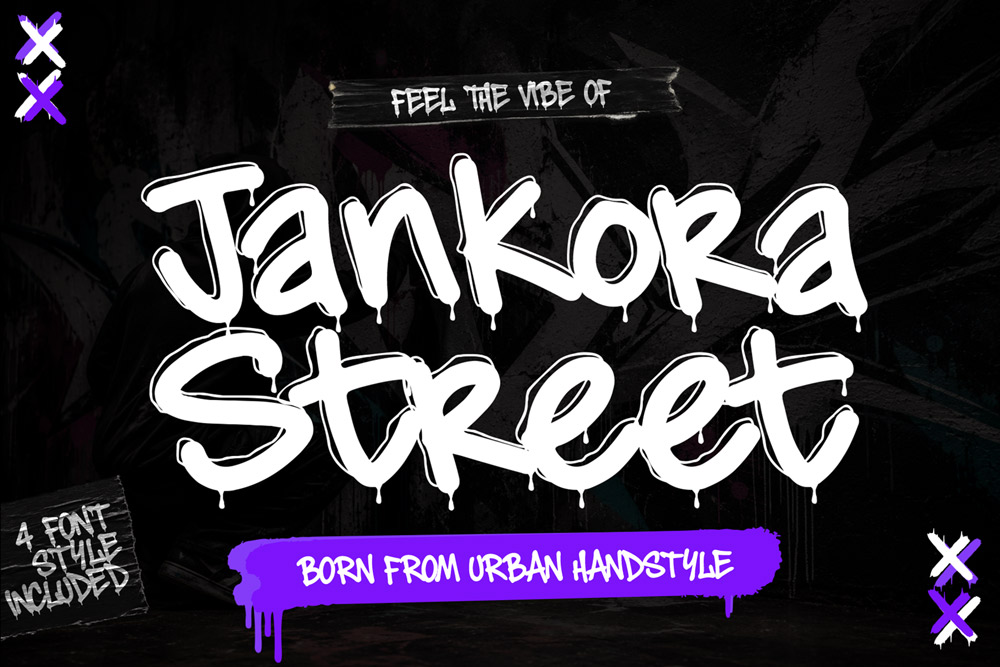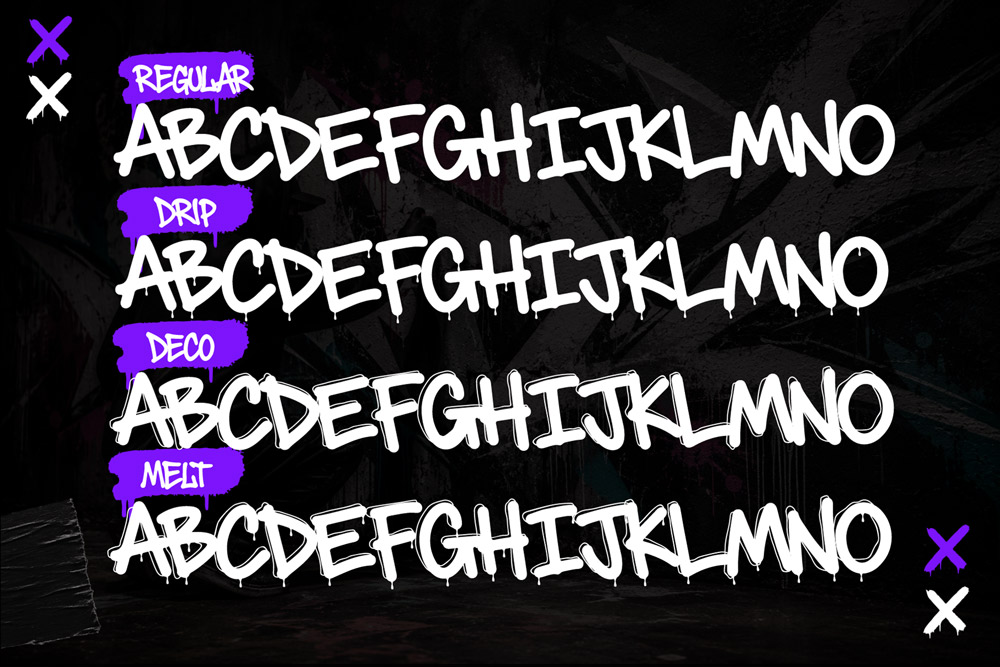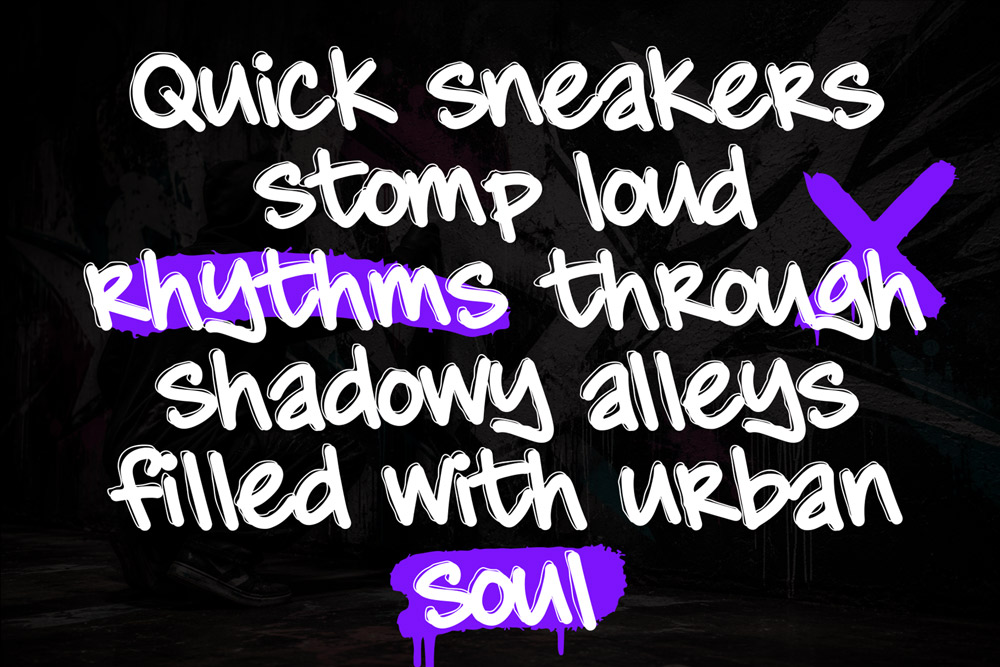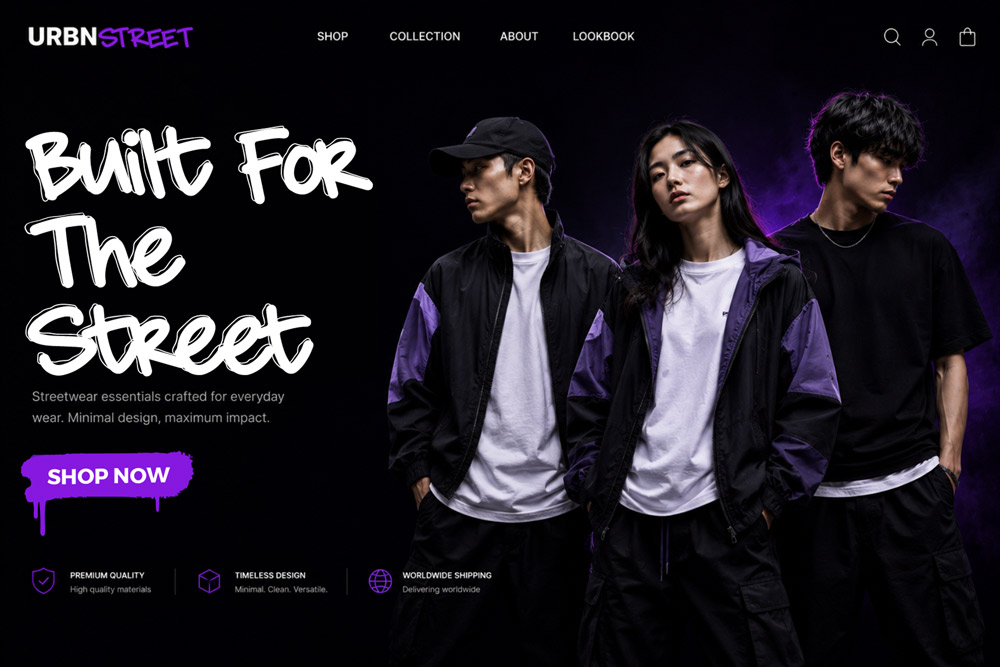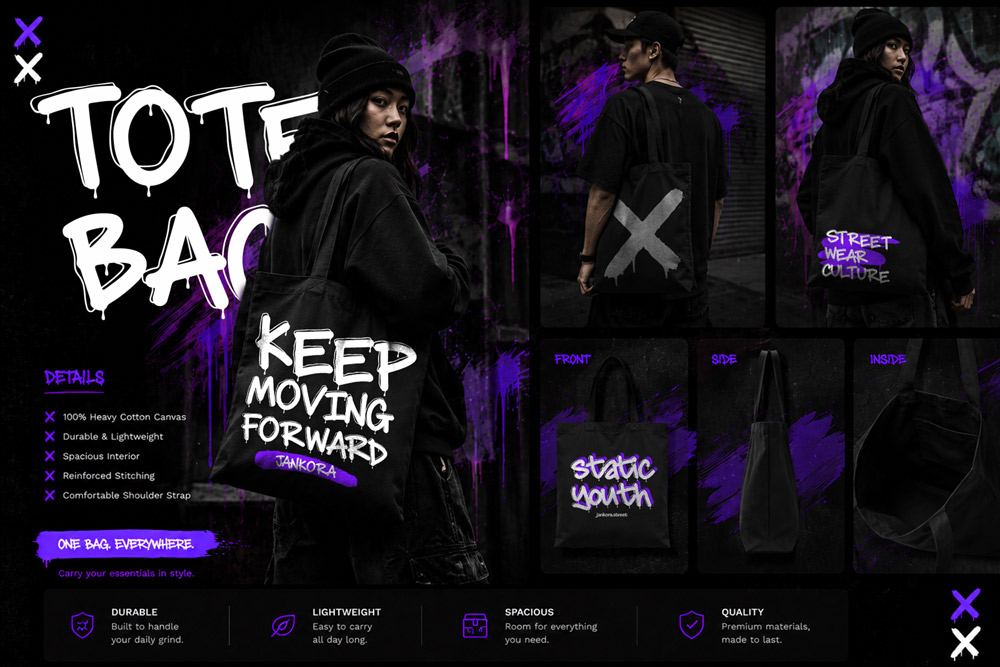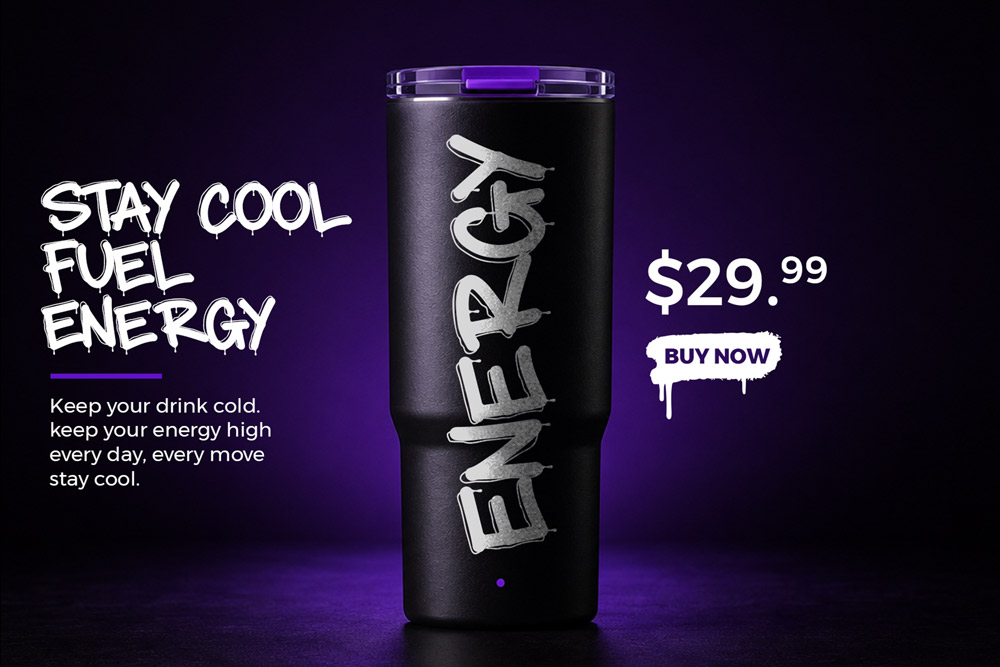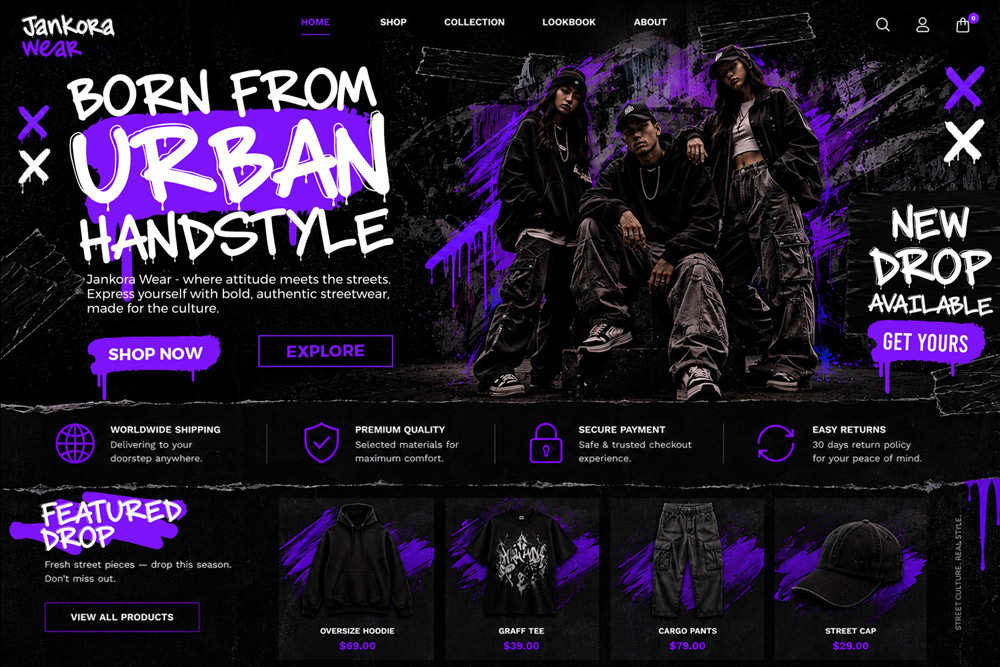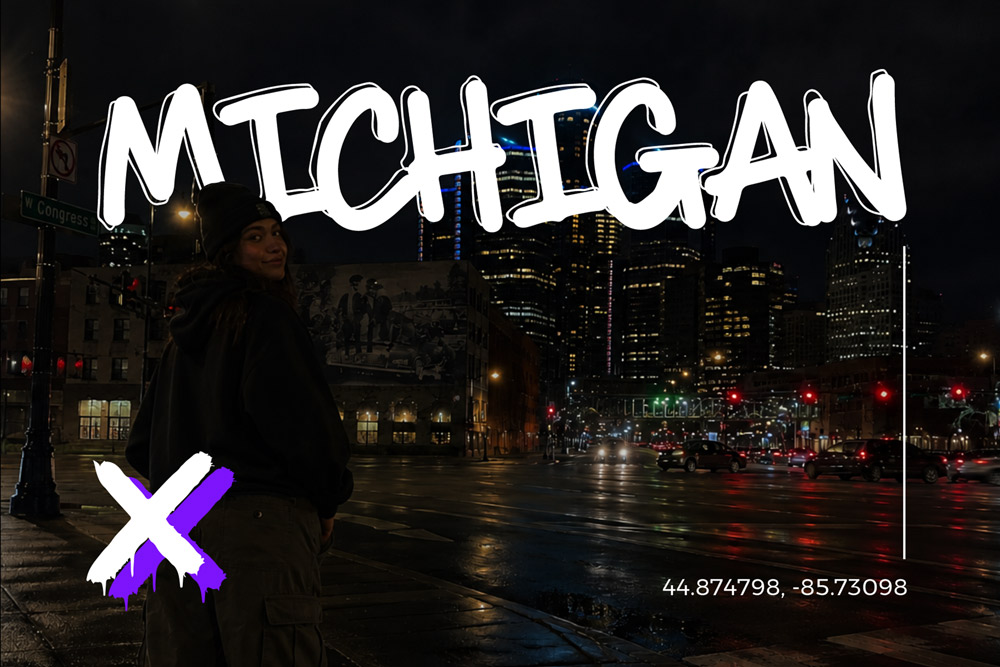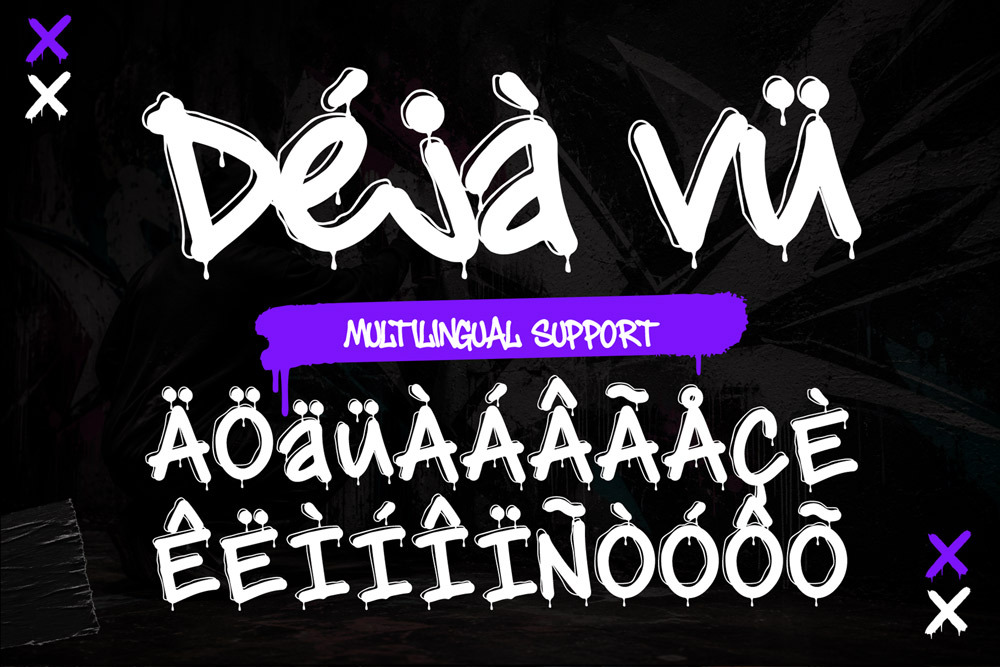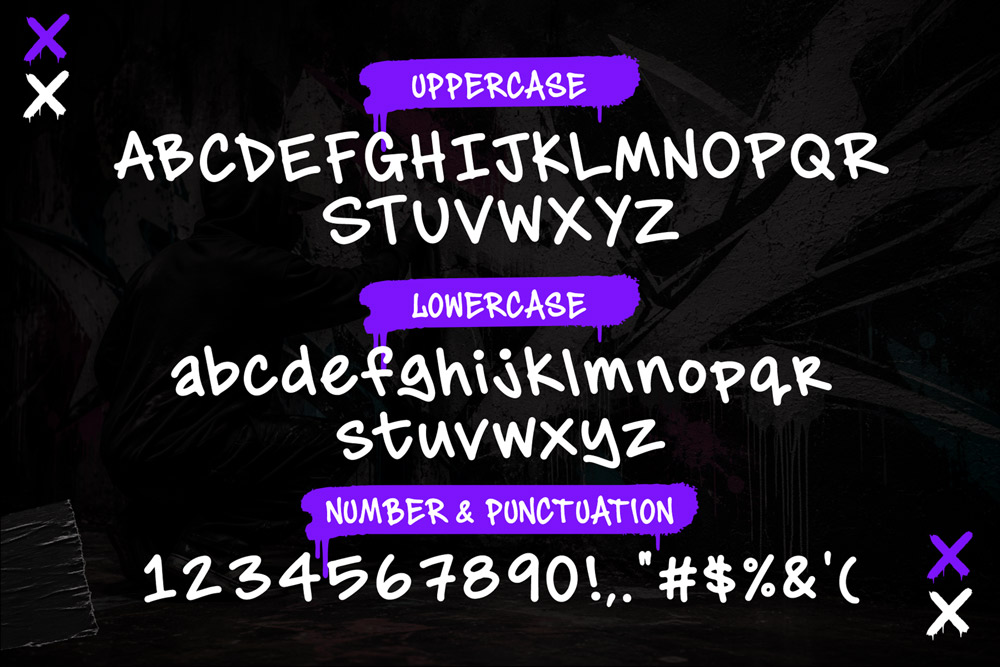
Jankora Street – Decorative Graffiti Font
Blazing graffiti vibes jump quick with urban flow
Jankora Street – Dripping Monoline Decorative Graffiti Style Font
Jankora Street is a powerful dripping graffiti font inspired by authentic urban street culture, modern graffiti lettering, underground hip hop aesthetics, and bold decorative typography trends. Designed with expressive monoline strokes and dripping graffiti details, this decorative street font delivers an energetic visual identity that instantly grabs attention in any creative project.
This graffiti style font combines bold street lettering with modern decorative elements, making it perfect for designers, creators, apparel brands, musicians, gamers, streamers, content creators, and digital artists who want to create strong urban visuals. Whether you are creating streetwear branding, graffiti logo designs, poster artwork, music covers, YouTube thumbnails, esports graphics, social media banners, stickers, or merchandise, Jankora Street provides the authentic street typography style needed to elevate your design.
The dripping graffiti font style gives every letter a handcrafted urban character while maintaining readability and flexibility. Its monoline decorative structure creates a balanced combination between modern graffiti aesthetics and professional typography quality. This urban graffiti font is built to stand out on both digital and print projects, making it an essential asset for designers searching for a best-selling graffiti font with modern street appeal.
Dripping Graffiti Font Style
Jankora Street features authentic dripping graffiti typography inspired by urban wall art, street murals, spray paint lettering, and underground street culture. The dripping effect creates a raw street aesthetic that enhances posters, apparel, album covers, and branding designs.
Monoline Decorative Letterforms
This monoline graffiti font uses smooth decorative strokes with consistent line weight, creating a clean yet expressive typography style suitable for modern graphic design projects.
Uppercase Characters
Jankora Street includes complete uppercase characters carefully crafted with strong graffiti personality and decorative urban details.
Multilingual Support
This decorative graffiti font supports multilingual characters, allowing creators from different regions to design international branding projects, social media graphics, posters, and merchandise with ease.
Number and Punctuation
Jankora Street includes complete numbers and punctuation marks to help designers create versatile urban typography compositions for logos, posters, banners, packaging, and digital media.
Stylistic Alternates
This graffiti style font includes stylistic alternates that provide more creative flexibility for custom typography designs, decorative lettering compositions, and unique urban branding.
Why Designers Love Jankora Street
Authentic Urban Graffiti Vibes
Designers love Jankora Street because it captures authentic graffiti typography energy while maintaining clean professional structure. The urban drip details create a realistic street art feel that works perfectly for bold branding and edgy creative projects.
Perfect for Streetwear Branding
This streetwear graffiti font is ideal for clothing brands, urban apparel collections, sneaker promotions, and modern fashion campaigns. The dripping decorative style creates a strong visual identity that resonates with street culture audiences.
Excellent for Music and Entertainment Designs
Jankora Street works beautifully for hip hop album covers, rap posters, DJ flyers, concert banners, YouTube thumbnails, and music festival graphics. Its decorative monoline graffiti style adds powerful energy to entertainment branding.
Strong Social Media Presence
Content creators and digital marketers love using this decorative graffiti font for Instagram posts, TikTok thumbnails, YouTube banners, gaming streams, and viral social media graphics because the typography instantly attracts attention.
Flexible for Digital and Print Projects
This modern graffiti font is optimized for both print and digital applications. From stickers and posters to apparel mockups and online branding, Jankora Street maintains high readability and visual impact.
Creative Typography Freedom
With stylistic alternates and multiple font styles included, designers can easily create custom graffiti lettering compositions, logo concepts, and unique typography artwork.
Perfect For
Jankora Street is the perfect decorative graffiti font for: